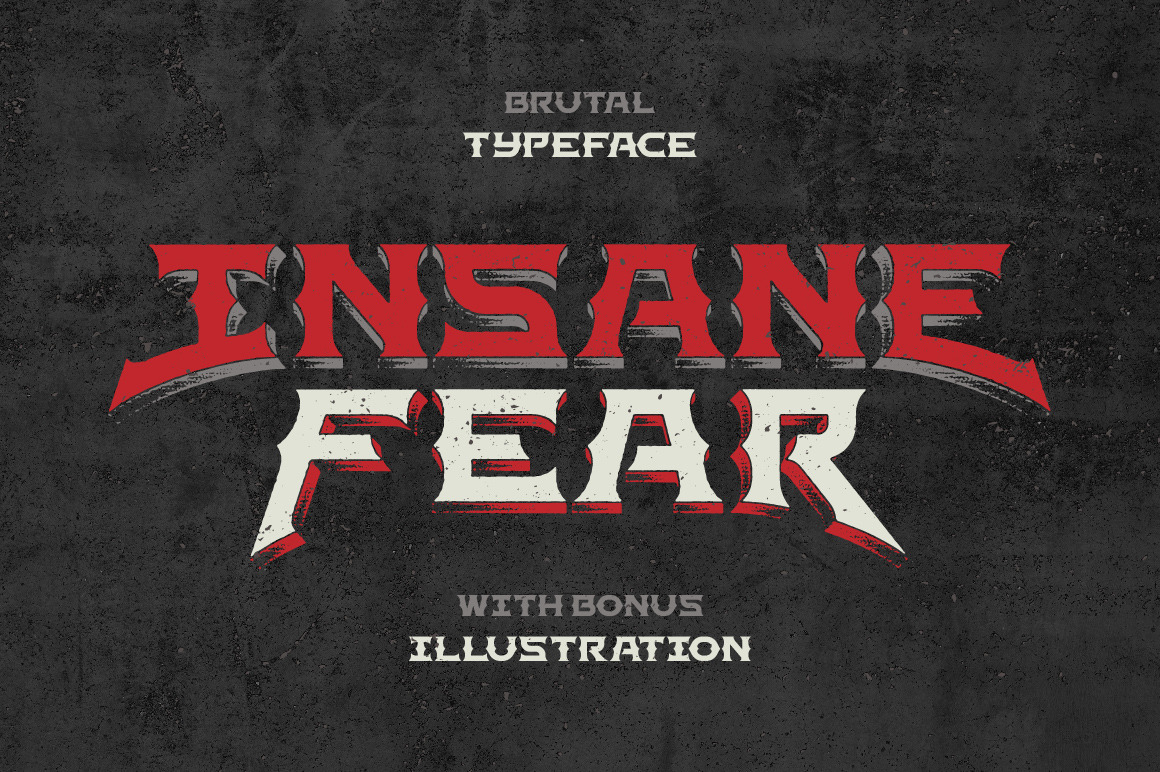
Insane Fear font
Hello! Presenting "Insane Fear" brutal typeface. It includes rough and clean versions with separated font layer of extrude effect. As you see the first and the last letters can be different. Just select the last letter and enable "Stylistic Alternate" feature in OpenType tab. Or you can just get it from "Glyphs" tab. Also as a bonus a grim reaper illustration is included.
Note: This font contains only latin characters (all available characters you can see on the 4th screenshot)